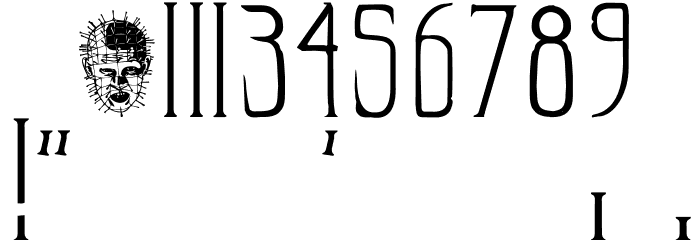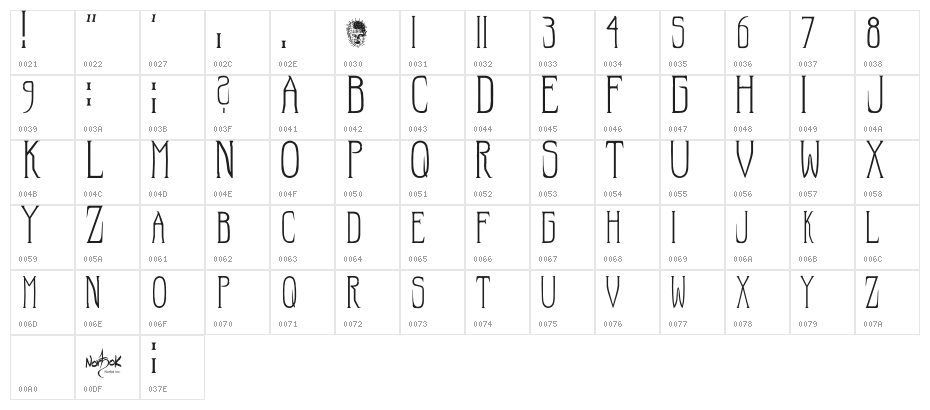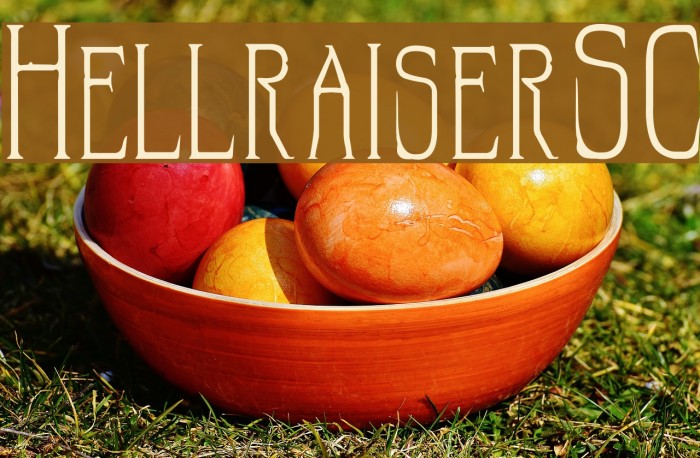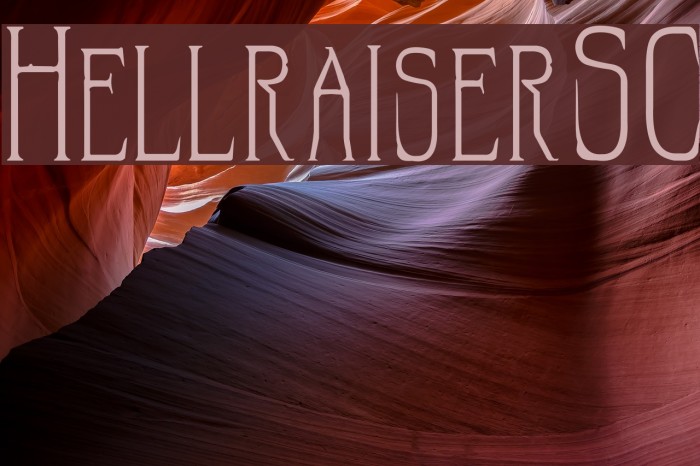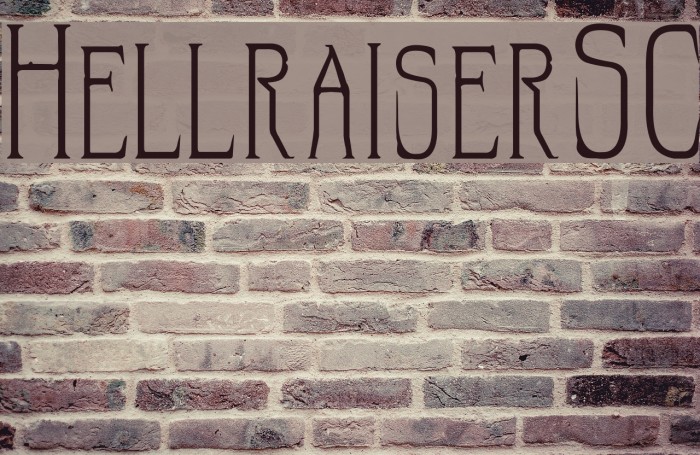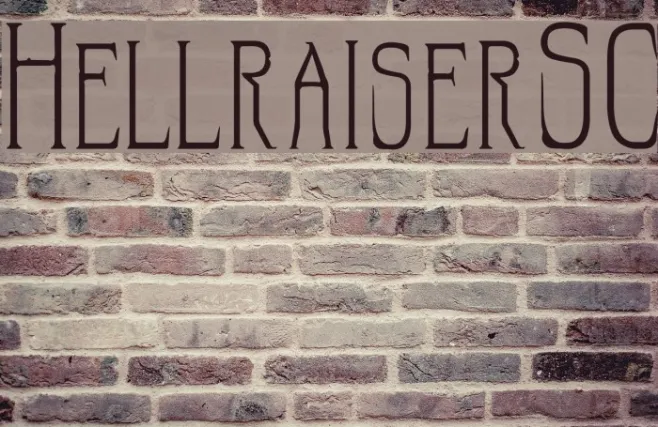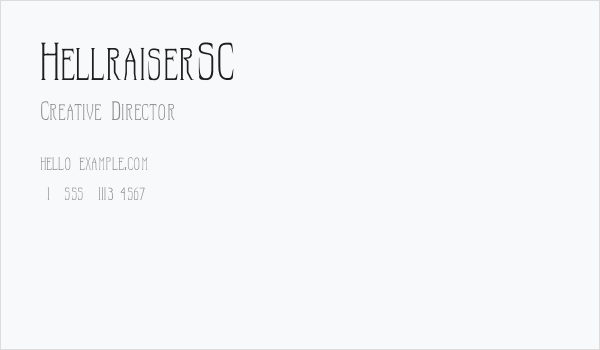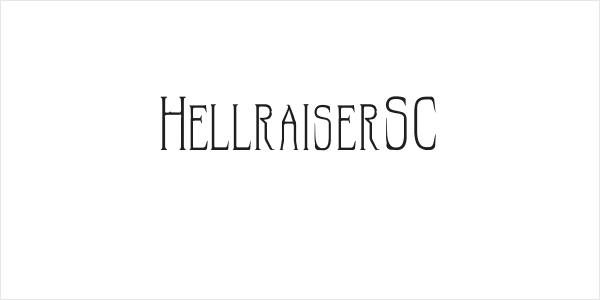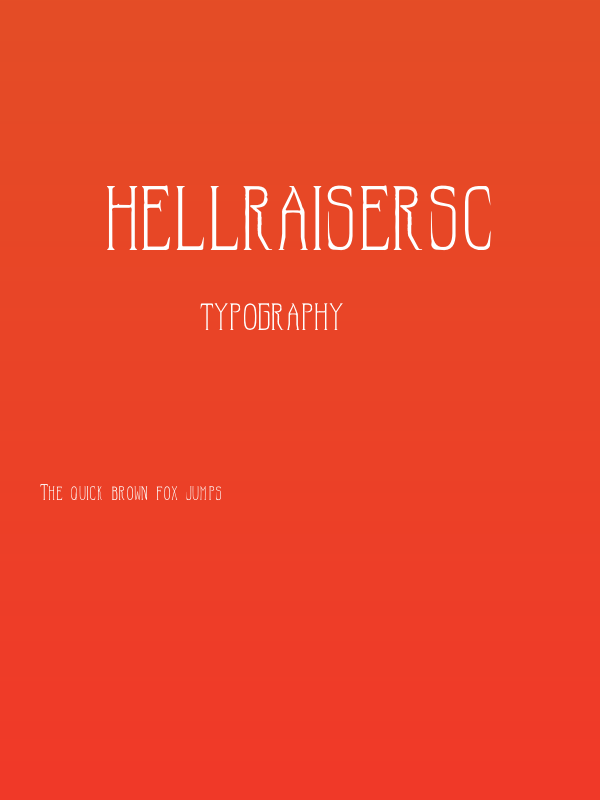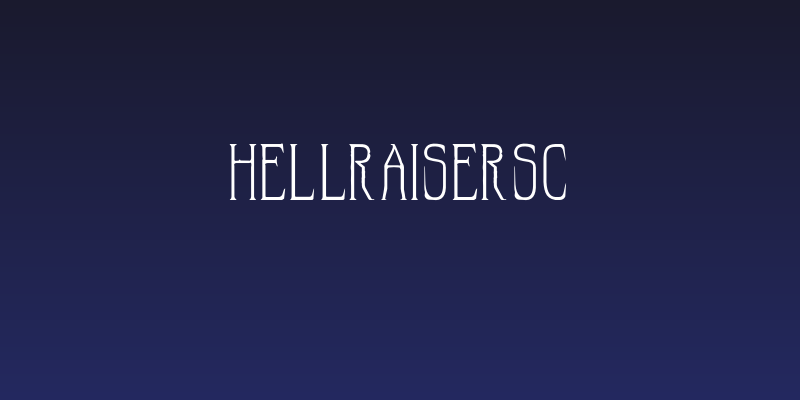
HellraiserSC Font
HellraiserSC Description
This font features a distinctive, elongated design with sharp, pointed serifs that give it a gothic and slightly eerie appearance. The uppercase letters are tall and narrow, with a consistent vertical emphasis that creates a striking visual impact. The lowercase letters maintain the same elongated style, ensuring a cohesive look across different text sizes. Numbers and special characters are designed to match the overall aesthetic, with unique shapes that add to the font's character. The font's style is reminiscent of classic horror themes, making it ideal for projects that require a dramatic and bold typeface. Its unique design elements make it stand out, while still maintaining readability.
| Overall Style | Gothic, Dramatic |
| Proposed Projects | Ideal for horror-themed posters, book covers, movie titles, and Halloween event invitations. |